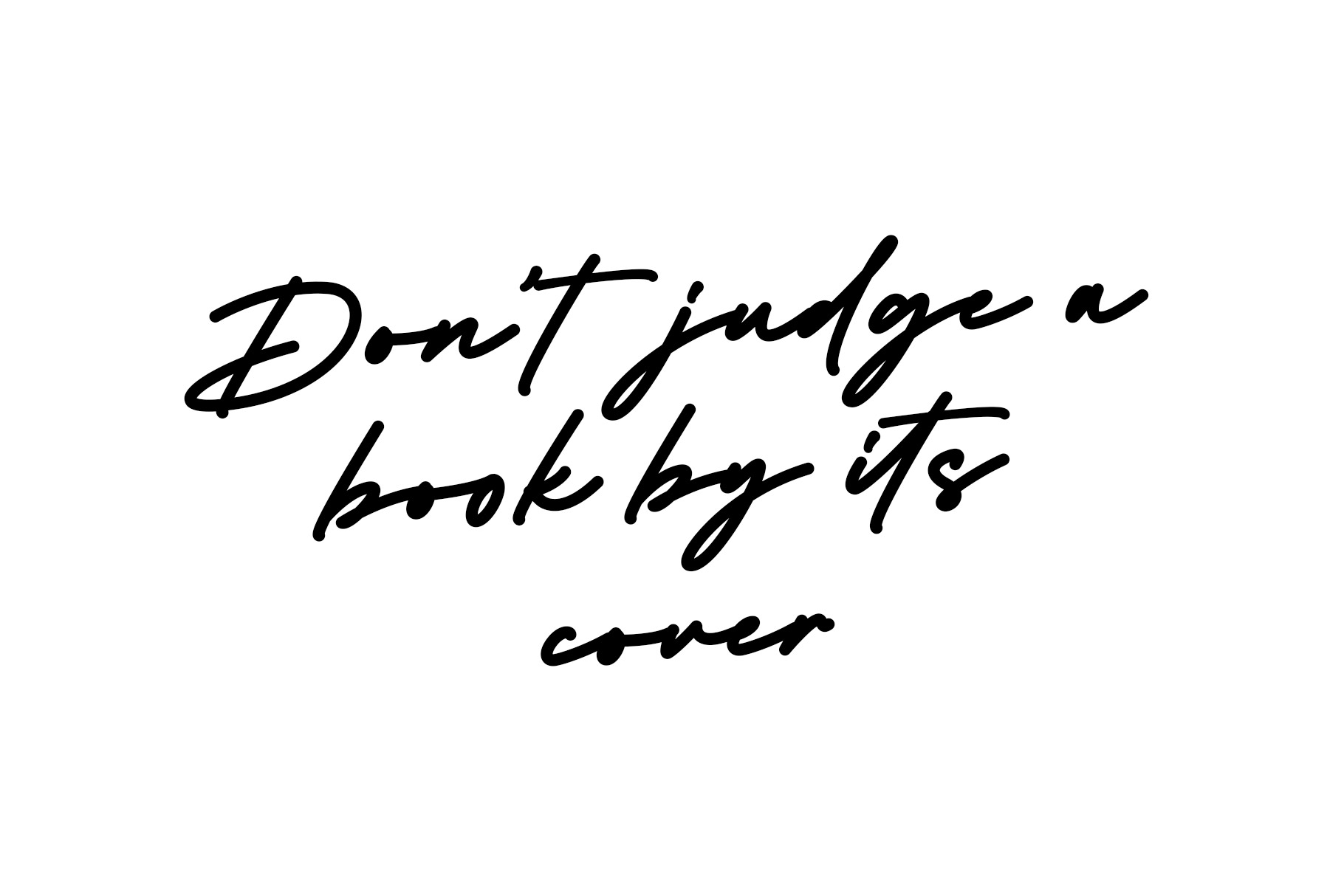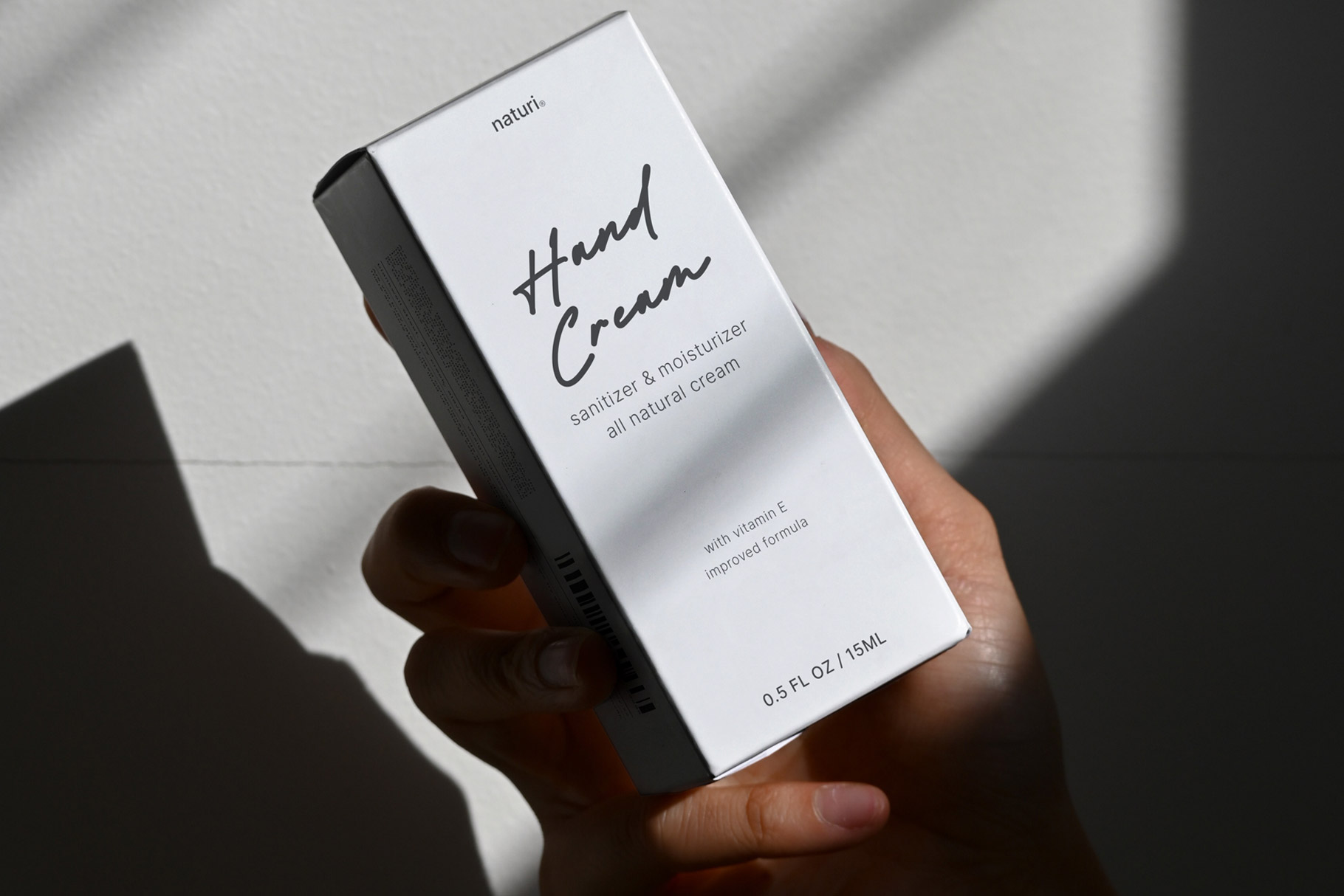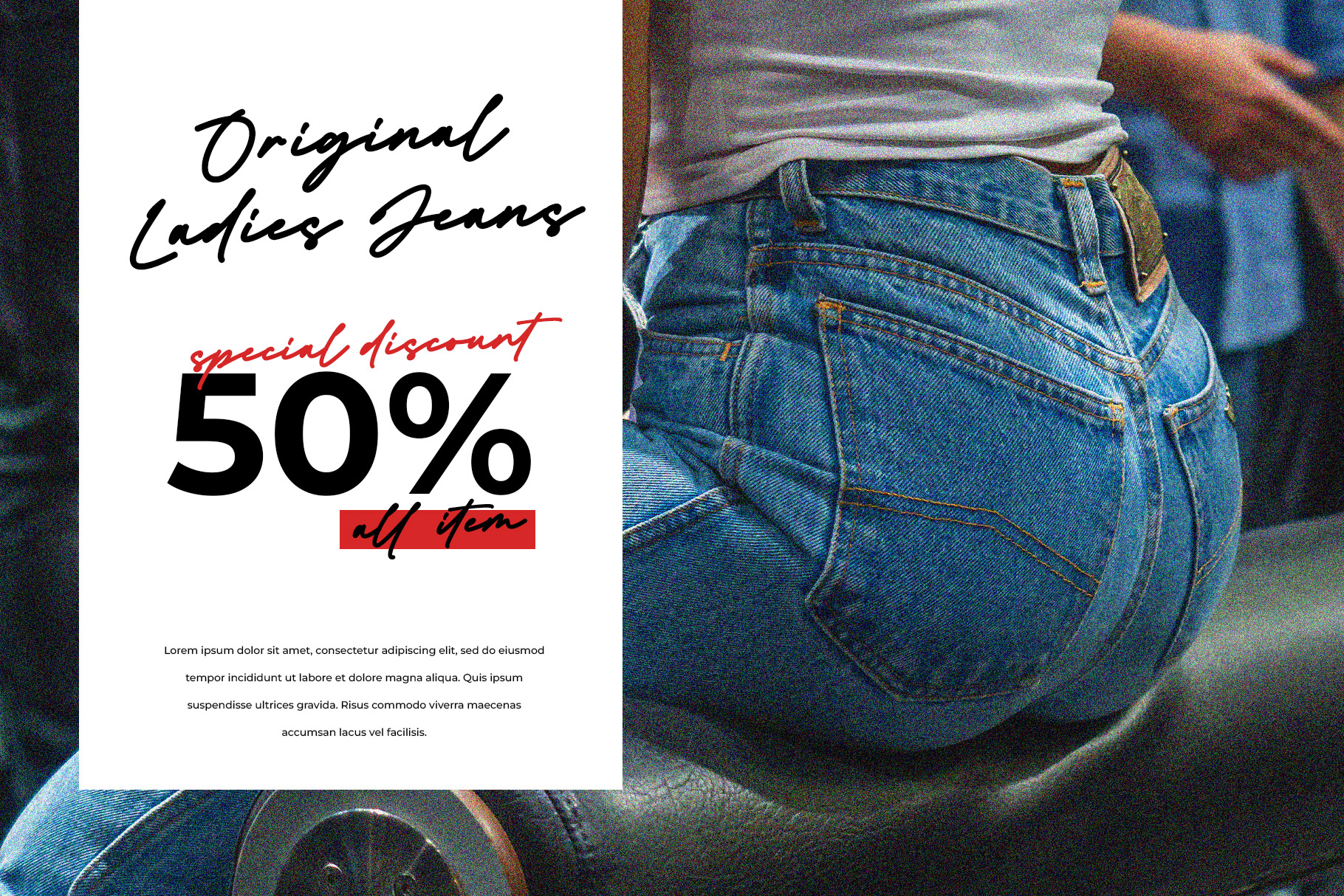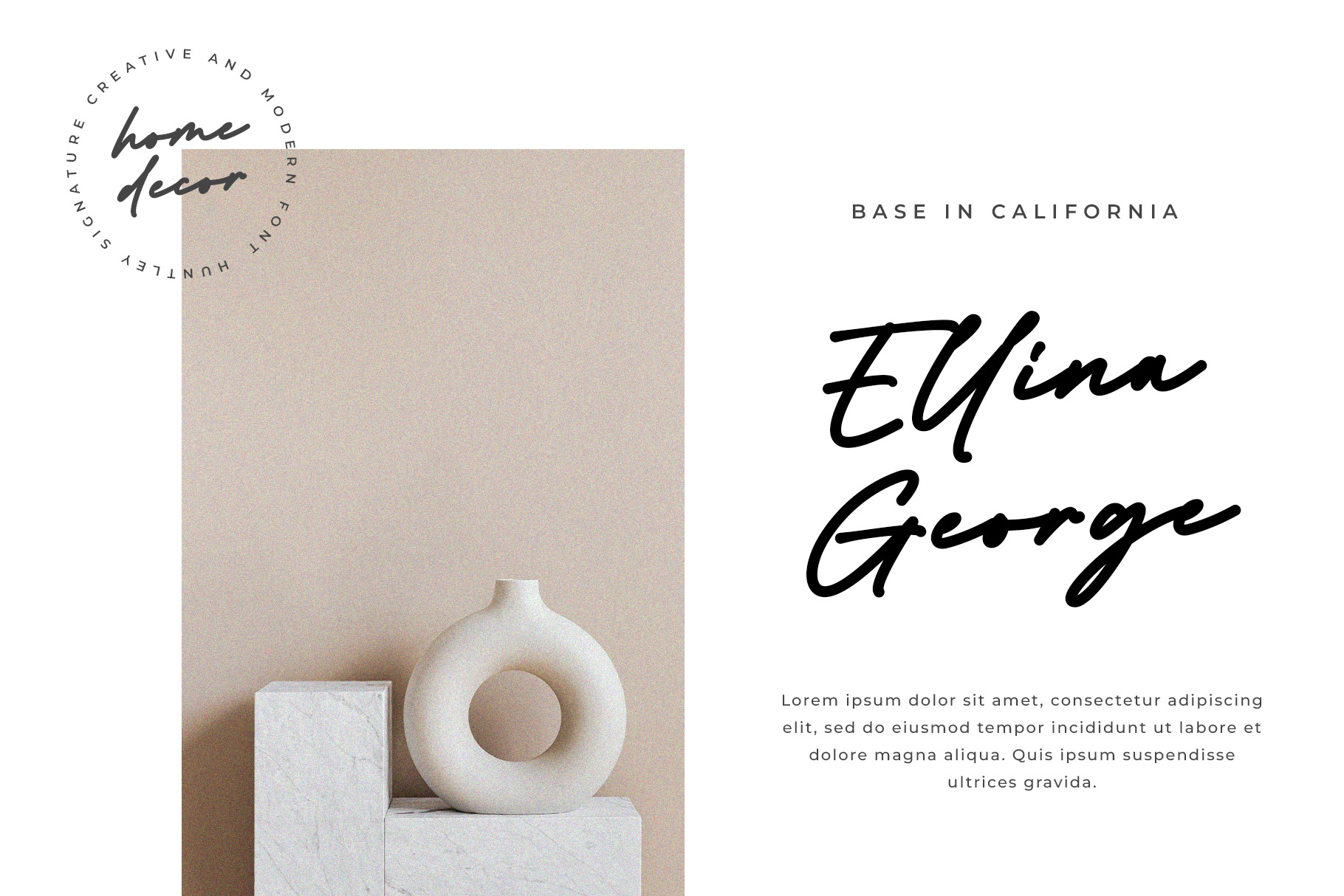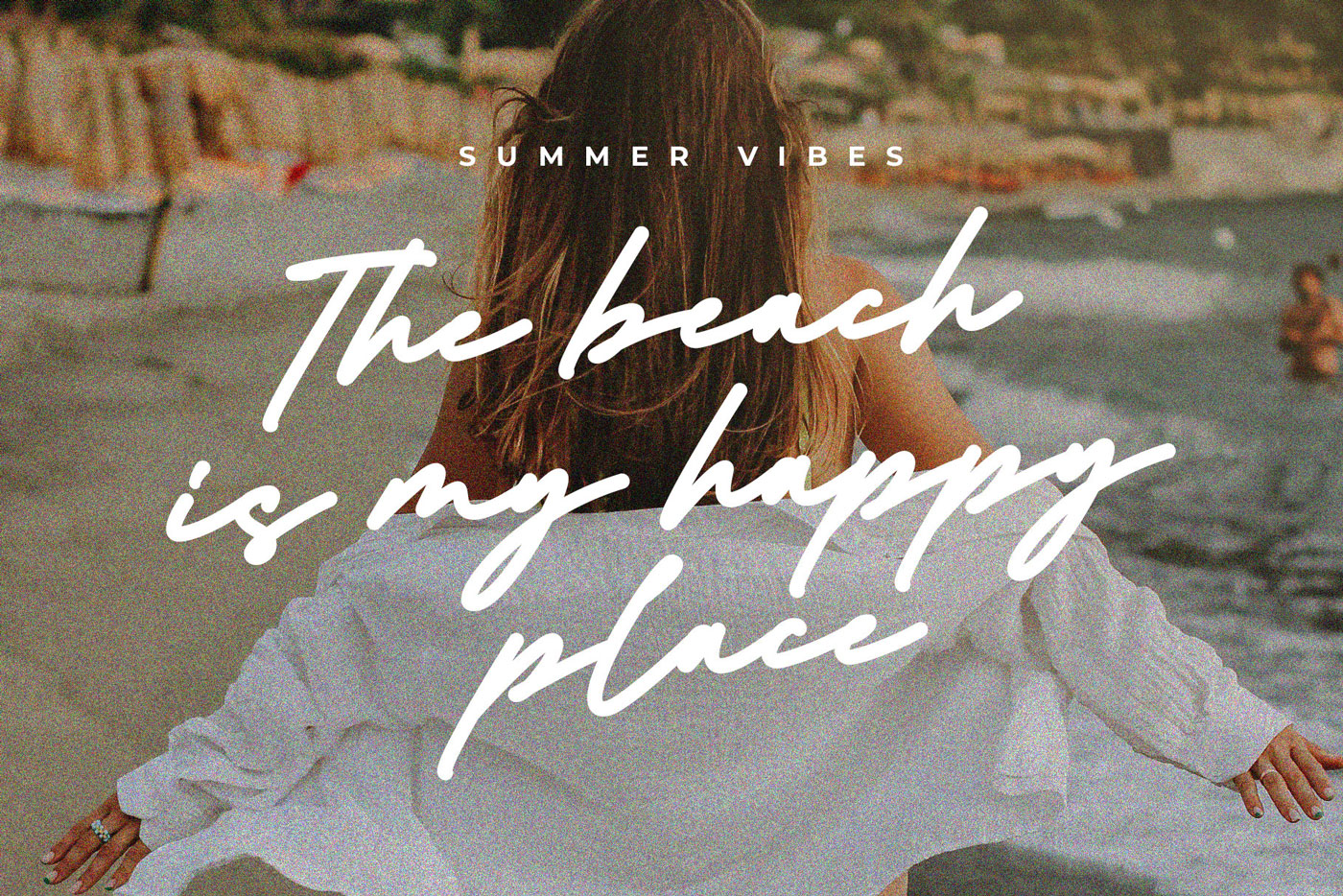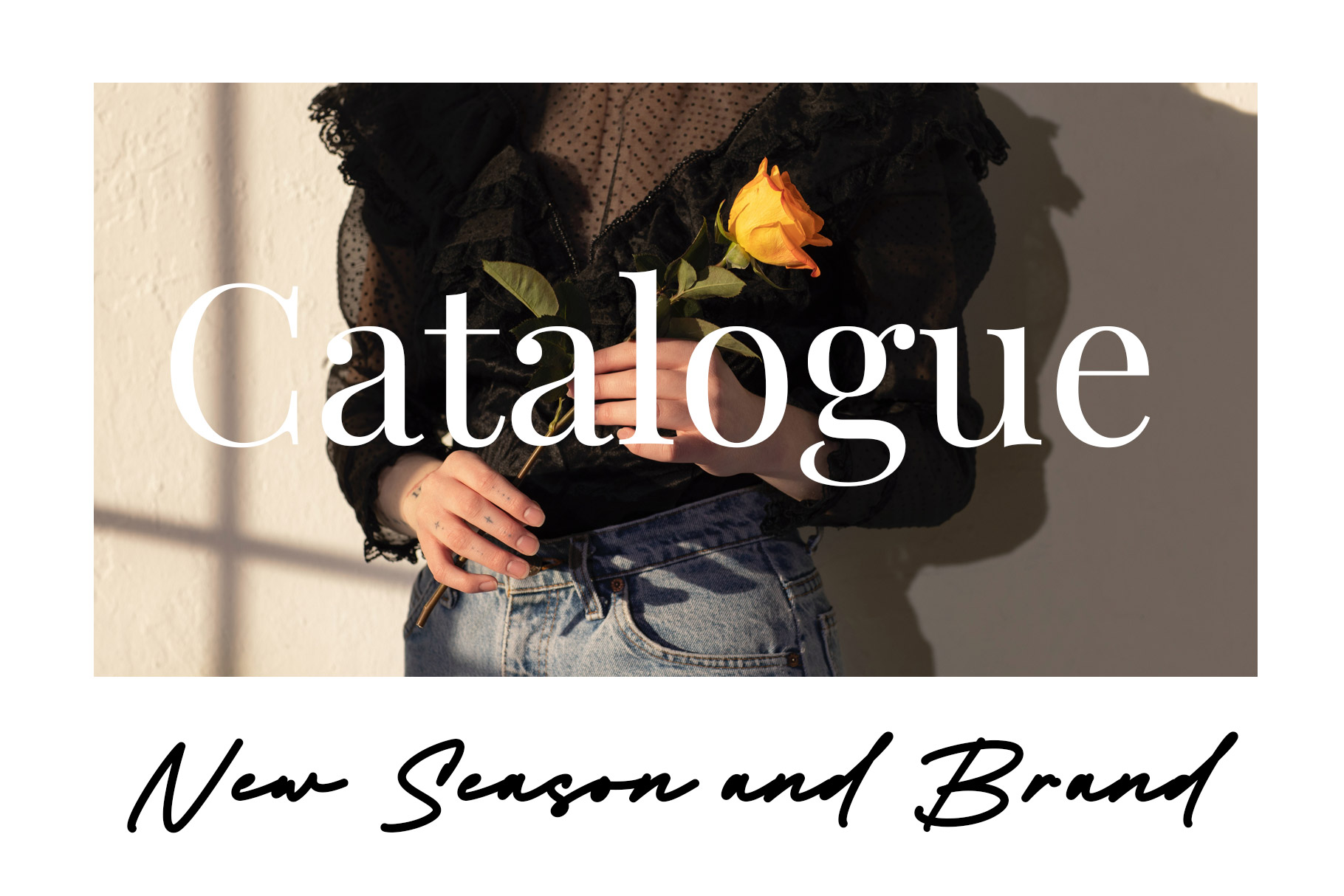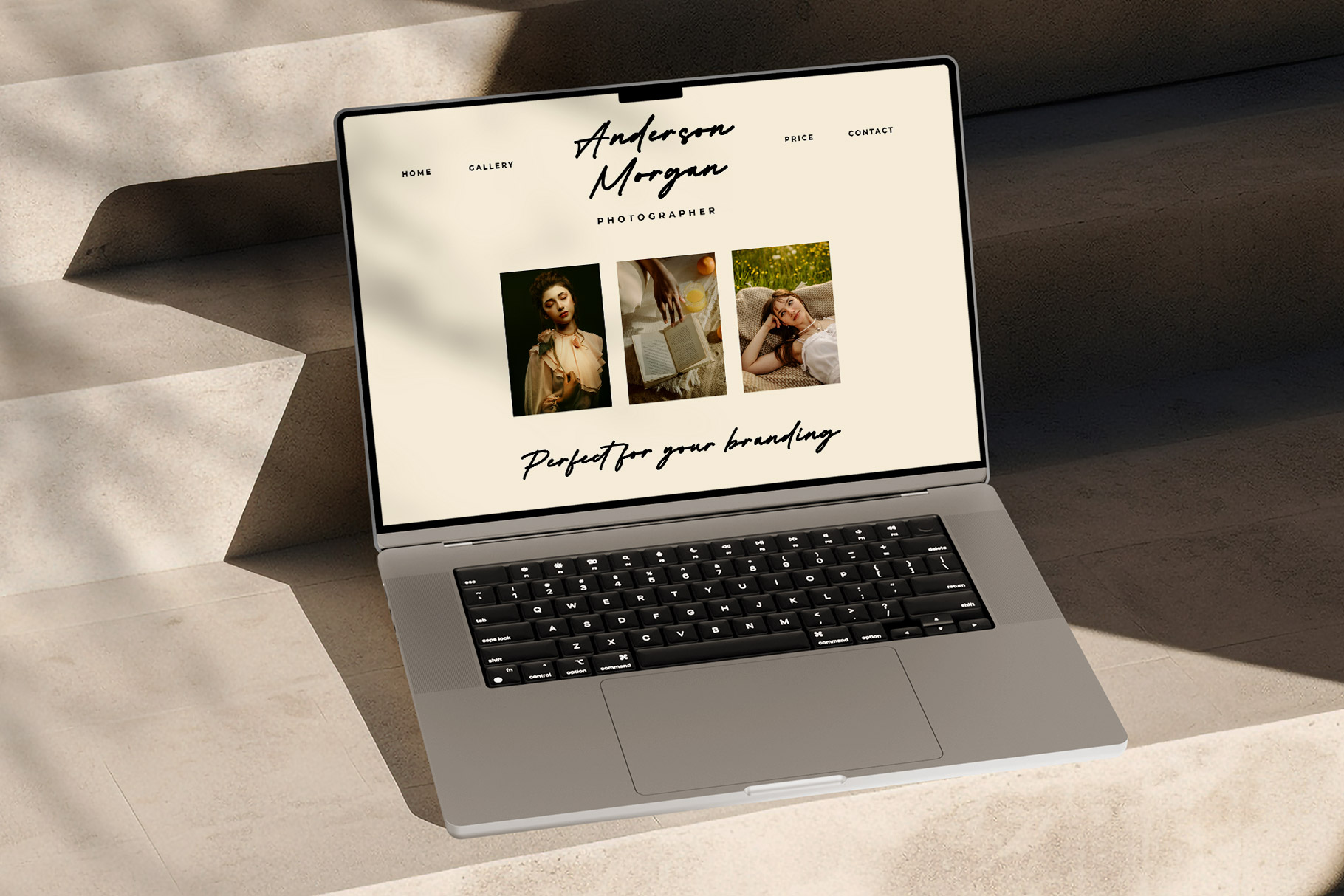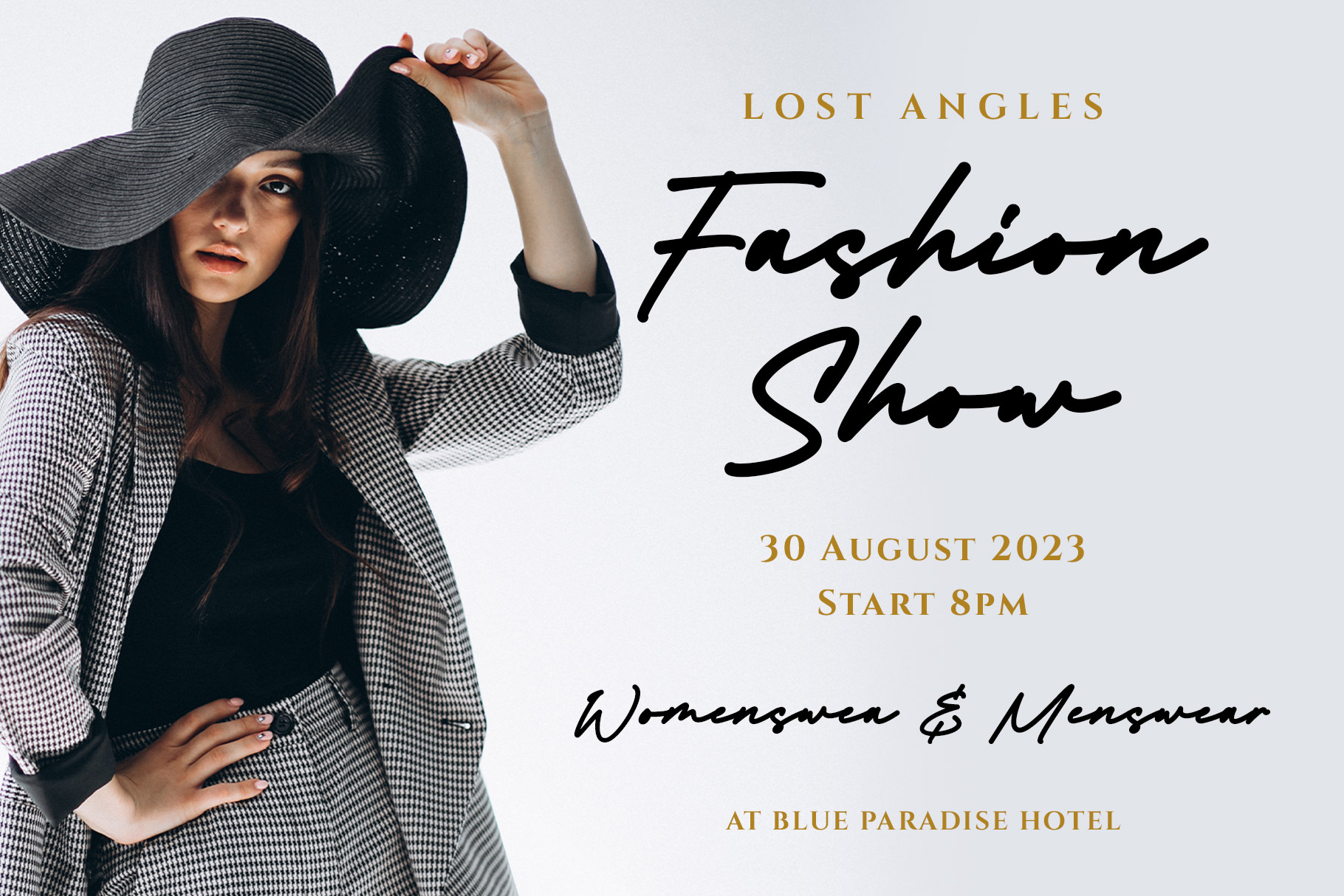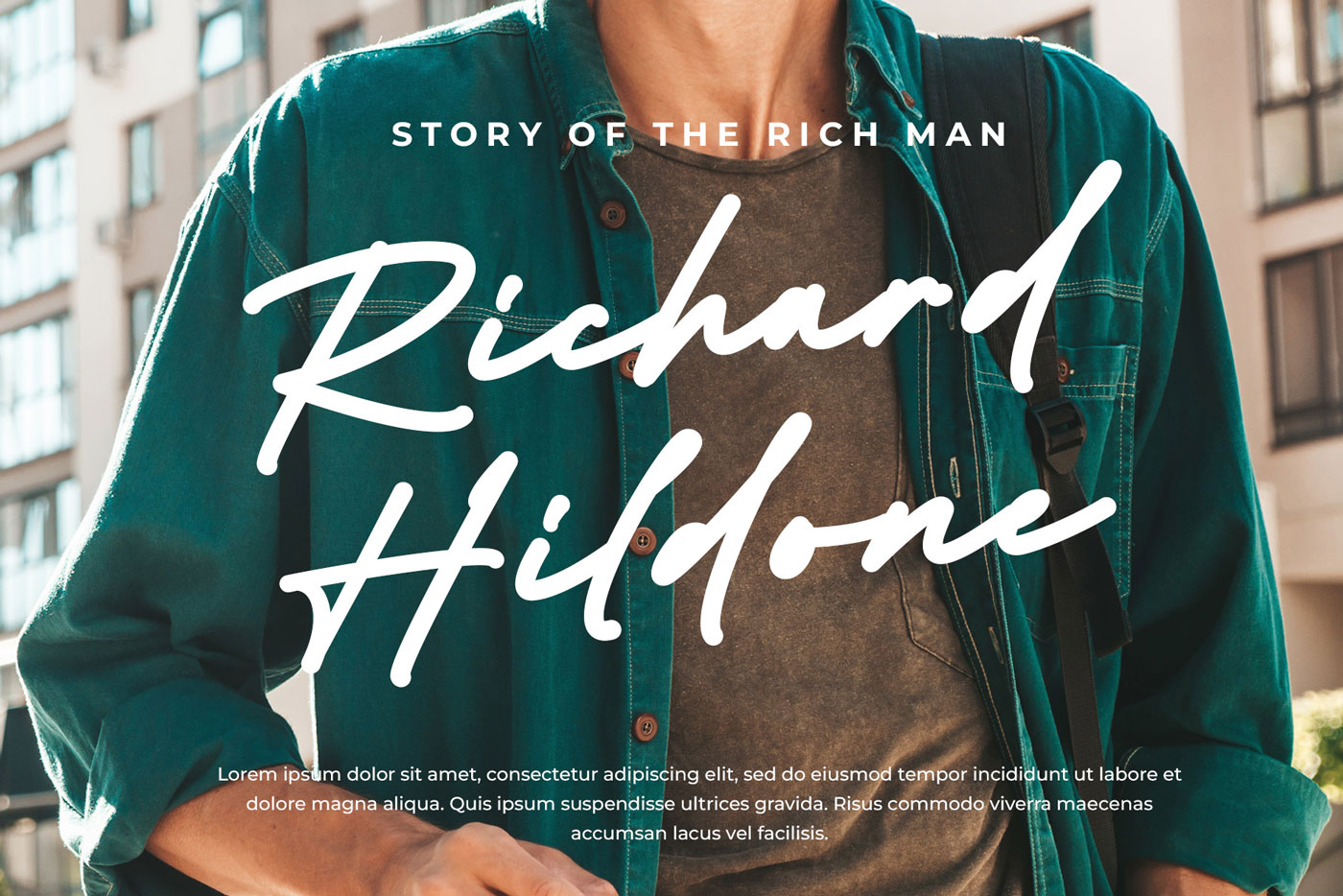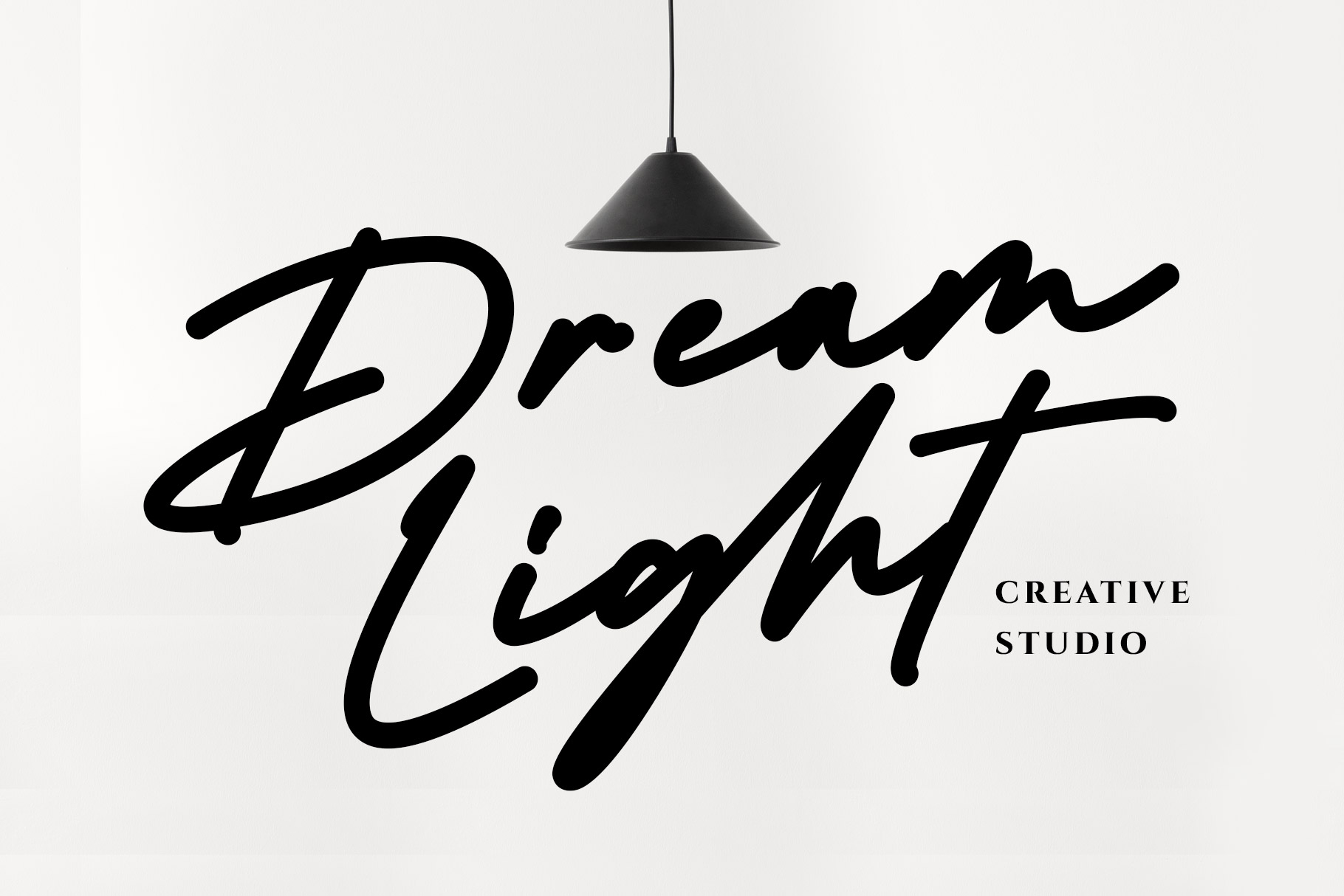
Huntley Signature Font
Huntley Signature –  modern and bold handwritten style which can be interpreted professional. we keep this font looks elegant, luxury, premium, modern, readable, stylish, catchy and easy to use.
Huntley Signature is a perfect choice for any creative endeavor, chic, lifestyle design such as logos, advertisements, watermark on photography, stationery, branding project, display and magazine, invitation, corporate brand, product design, label, business project and many other project need handwritten taste.
• Alternate